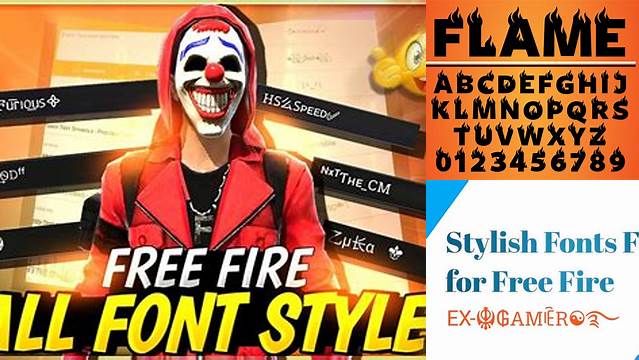
Stylish fonts have become an integral part of the Free Fire gaming experience, allowing players to personalize their in-game names and profiles. If you're looking to add a unique flair to your Free Fire persona, this guide will walk you through everything you need to know about stylish font Free Fire download. We'll explore what stylish fonts are, why they're so popular, how to download and use them, and address some frequently asked questions. So, guys, buckle up and let's dive into the world of stylish fonts in Free Fire!
In the context of Free Fire, stylish fonts refer to the various non-standard fonts and symbols that players use to make their in-game names, bios, and messages stand out. These fonts are not the default fonts available within the game. Instead, they are created using Unicode characters and symbols, which are then converted into a format that Free Fire can display. The appeal of stylish fonts lies in their ability to add a personal touch and make a player's profile more memorable. Think of it as your in-game signature – a way to express your individuality and style. The use of stylish fonts can range from simple changes in letter styles, such as italics or bold, to more elaborate combinations of symbols and characters that create visually striking names and profiles. The creativity within the Free Fire community is endless, with players constantly discovering new ways to combine characters and symbols to produce unique and eye-catching stylish fonts. This element of customization is a significant reason why stylish fonts have become such a popular trend in the game. Players enjoy the ability to differentiate themselves and make a statement, and stylish fonts offer a straightforward yet effective way to achieve this. Moreover, having a stylish font can also contribute to a player's online persona, making them more recognizable and memorable to other players. Whether it's a subtle change or a bold statement, the use of stylish fonts allows players to craft an identity that reflects their personality and gaming style. The variety of options available also means that players can frequently update their fonts to match their mood or current in-game achievements, keeping their profiles fresh and engaging.
Stylish fonts are incredibly popular in Free Fire for several reasons, primarily centered around personalization, visibility, and self-expression. Let’s break down these key factors. First and foremost, personalization is a huge draw. In a game with millions of players, standing out from the crowd is essential. Stylish fonts allow players to customize their in-game names and profiles, adding a unique touch that distinguishes them from others. It’s a way to say, “Hey, this is me!” in a visually appealing way. Think of it as your digital signature, a way to make your mark in the virtual world. The ability to personalize your gaming experience is a powerful motivator, and stylish fonts offer an easy and effective way to achieve this. Secondly, visibility plays a crucial role. A stylish font can make a player’s name more noticeable in the game. Whether it’s in the kill feed, the lobby, or during gameplay, a unique font is more likely to catch the eye. This can be particularly advantageous for content creators or players who want to build a recognizable brand within the Free Fire community. When your name stands out, people are more likely to remember you, which can lead to more friend requests, team invites, and even followers on social media. The visibility factor extends beyond just recognition; it also enhances the overall aesthetic appeal of the game. A well-chosen stylish font can make a profile look more polished and professional, which can be particularly appealing to players who take their gaming seriously. Lastly, self-expression is a significant driver of the popularity of stylish fonts. Gaming is a form of self-expression for many people, and stylish fonts provide another avenue for players to showcase their personality and style. Whether it’s using a bold and aggressive font to convey a competitive spirit or a more elegant and refined font to reflect a sophisticated style, the possibilities are endless. Stylish fonts allow players to communicate something about themselves without even saying a word. This form of visual self-expression can be incredibly empowering, allowing players to craft an online persona that truly represents who they are. The freedom to choose from a wide range of fonts and symbols means that players can continually experiment and update their profiles to match their evolving tastes and moods.
Choosing the best stylish font for your Free Fire profile can be a fun but sometimes overwhelming task, given the plethora of options available. To help you make the best choice, here are some tips to consider. First, consider readability. While it’s tempting to go for the most elaborate and intricate font, it’s crucial to ensure that your name remains readable. A font that’s too complex or cluttered can be difficult for other players to decipher, which defeats the purpose of having a stylish font in the first place. Opt for fonts that are visually appealing but still easy to read at a glance. Think about how your name will appear in different contexts within the game, such as in the kill feed or the lobby, and choose a font that maintains its clarity in these situations. Secondly, think about your personal style. Your stylish font should be a reflection of your personality and gaming style. Are you a competitive player who prefers a bold and aggressive look, or do you lean towards a more refined and elegant aesthetic? Choose a font that aligns with your overall style and the image you want to project in the game. For example, if you’re known for your strategic gameplay, a sophisticated font might be a good fit, while a more flamboyant font might suit a player who enjoys a high-octane, action-packed style. Next, check for compatibility. Not all stylish fonts display correctly in Free Fire. Some fonts may appear as blank spaces or boxes, while others may not render properly on certain devices. Before settling on a font, test it out in the game to make sure it looks the way you expect it to. You can do this by pasting the font into your profile bio and checking how it appears in the game. If the font doesn’t display correctly, try a different one until you find a font that works well. Also, consider the use of symbols. Many font generators allow you to add symbols to your text, which can further enhance the uniqueness of your name. However, it’s important to use symbols judiciously. Too many symbols can make your name look cluttered and difficult to read. Instead, choose a few well-placed symbols that complement the font and add a subtle touch of flair. Think about the meaning or association of the symbols you use – for example, a star might symbolize excellence, while a crown might represent leadership. Finally, stay consistent with your brand. If you’re a content creator or streamer, it’s important to maintain a consistent brand across all your platforms. This includes your in-game name and font. Choose a stylish font that aligns with your overall brand identity and use it consistently across your Free Fire profile and social media channels. This will help your audience recognize and remember you, building your brand within the gaming community. By keeping these tips in mind, you can choose a stylish font that not only looks great but also effectively represents your personality and style in Free Fire.
In conclusion, stylish fonts are a fantastic way to add a personal touch to your Free Fire experience. They offer a unique opportunity to stand out in the game, express your individuality, and make your profile more memorable. By following the steps outlined in this guide, you can easily download and use stylish fonts to create a name and bio that truly represent you. Remember to choose fonts that are readable, compatible, and reflective of your personal style. And don’t forget to address any common issues that may arise to ensure a seamless experience. So, go ahead, guys, and get creative with your fonts! Express yourself, make a statement, and enjoy the enhanced personalization that stylish fonts bring to Free Fire. Happy gaming, and may your stylish name bring you victory and recognition on the battlefield!
Q: Are Stylish Fonts Allowed in Free Fire?
Yes, stylish fonts are generally allowed in Free Fire. The game supports Unicode characters, which means you can use various font generators to create unique names and bios. However, it’s essential to ensure that the fonts you use are readable and don't violate any in-game rules or guidelines. Garena, the developer of Free Fire, hasn't explicitly banned the use of stylish fonts, but they do have policies against offensive or inappropriate content. As long as your chosen font and name are not offensive, discriminatory, or in violation of the game's terms of service, you should be fine. It's always a good idea to exercise common sense and respect the game's community standards when selecting a stylish font for your profile. Using a font that's too complex or difficult to read can also be problematic, as it might hinder communication with teammates or make it harder for other players to recognize you in the game. In summary, while stylish fonts are permitted, it's crucial to use them responsibly and ensure they align with Free Fire's community guidelines. This way, you can enjoy personalizing your profile without risking any penalties or disruptions to your gameplay experience.
Q: Can Stylish Fonts Affect My Game Performance?
In most cases, stylish fonts do not significantly affect game performance. Free Fire is designed to handle Unicode characters, and the impact of using stylish fonts on your device's processing power is typically minimal. However, there are a few scenarios where you might experience a slight performance dip. If you're using an older or lower-end device, the rendering of complex fonts with numerous symbols and intricate designs might strain the device's resources. This can potentially lead to minor lag or frame rate drops, but the effect is usually negligible. Another factor to consider is the number of players using stylish fonts in a particular match. If there are many players with complex fonts, the cumulative effect could theoretically impact performance, especially during intense gameplay moments. However, this is a rare occurrence and not a common issue for most players. To minimize any potential performance impact, it's advisable to choose stylish fonts that are reasonably simple and avoid excessive use of symbols. A clean and legible font is not only easier to read but also less likely to cause any strain on your device. Additionally, ensure that your device meets the minimum system requirements for Free Fire and that your game is updated to the latest version. Keeping your game and device optimized can help ensure smooth performance regardless of the fonts used by you or other players. Overall, while there's a theoretical possibility of stylish fonts affecting performance, the impact is generally minimal and shouldn't be a major concern for most players. As long as you use fonts responsibly and keep your device optimized, you can enjoy the personalization benefits of stylish fonts without sacrificing gameplay performance.
Q: Are There Any Risks in Using Font Generator Websites or Apps?
Yes, there are some risks associated with using font generator websites or apps, so it's essential to exercise caution and take steps to protect your personal information and device. One of the primary risks is malware. Some font generator websites or apps may contain malicious software that can infect your device. This malware can compromise your personal data, track your online activity, or even cause damage to your device. To mitigate this risk, only use reputable font generators with a proven track record of safety and security. Look for websites and apps with positive reviews and a large user base. Avoid those that seem suspicious or have a history of security issues. Another risk is phishing. Some font generator sites may attempt to trick you into entering your personal information, such as your Free Fire account credentials or credit card details. This information can then be used to steal your account or commit fraud. Be wary of any font generator that asks for sensitive information. Legitimate font generators should only require you to enter the text you want to convert into a stylish font, and nothing more. Data privacy is another concern. Some font generator websites and apps may collect and share your data without your consent. This data can include your IP address, browsing history, and other personal information. To protect your privacy, read the privacy policy of any font generator before using it. Choose services that have transparent data handling practices and respect your privacy rights. Ads and pop-ups can also be a nuisance and a potential security risk. Many free font generators rely on advertising to generate revenue, but some ads can be intrusive or even malicious. Avoid clicking on suspicious ads or pop-ups, as they may lead to harmful websites or downloads. Consider using an ad blocker to reduce the risk of encountering malicious ads. Lastly, some font generators may not produce fonts that are fully compatible with Free Fire. This can result in display issues or even cause the game to crash. To avoid this, test the generated font in the game before fully committing to it. If you experience any issues, try using a different font generator or font style. In conclusion, while font generators can be a convenient way to create stylish fonts for Free Fire, it's crucial to be aware of the potential risks involved. By using reputable services, protecting your personal information, and testing fonts in the game, you can minimize these risks and enjoy the benefits of personalization without compromising your security or privacy.